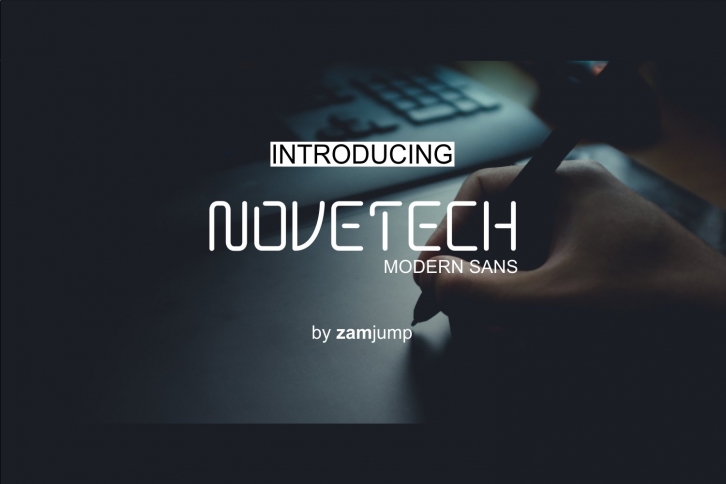
NOVETECH is a trendy and unique font with an authentic style. It was designed by zamjump and it's a great choice for creative people who need such a font. It was released on April 20, 2020 and the file size is 15.83 MB. NOVETECH will add an organic vibe to any design idea!